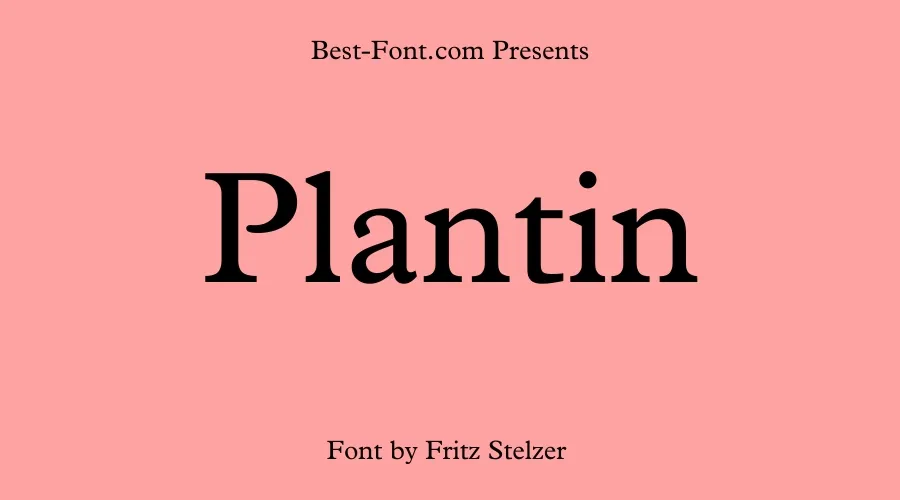
About Plantin Font
Plantin Font embodies typographic excellence through its masterful combination of swash extensions and reliability. Created for legal documents, this typeface delivers exceptional authenticity and artistic merit across all applications. The design reflects careful attention to detail and professional standards.
Advanced capabilities include distinctive modular forms and versatile stylistic sets, giving designers creative control. When used in captions, Plantin Font exhibits remarkable memory recall. The harmonious balance between ascender height and historical reference sets this typeface apart.